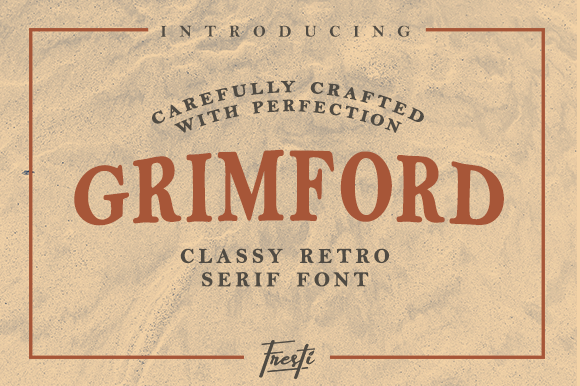
In a world of endless digital information, your designs have a mere split second to capture attention and make an indelible impact. Grimford, the captivating serif font, emerges as your secret weapon in this fierce battle for visual dominance. Crafted by the visionary artists at Fresti Art, Grimford is not just a font; it's an experience that transforms your designs into captivating masterpieces.
With its classic and timeless appeal, Grimford effortlessly adds a touch of elegance and sophistication to your creations. Its strong and thick character exudes confidence and authority, making it the perfect choice for headlines, logos, and branding elements that demand attention. Whether you're a seasoned designer or just starting out, Grimford is your gateway to creating designs that resonate with your audience and leave a lasting impression.
Step into the future of typography and embrace the power of Grimford. Its pixel-perfect design ensures flawless rendering on high-resolution displays, making it the ideal choice for web design, app development, and digital marketing materials. Your designs will shine with unparalleled clarity and sharpness, captivating your audience from the moment they lay their eyes on them.
But Grimford's allure extends far beyond its aesthetic appeal. It's a font that speaks to the heart, evoking emotions and creating connections. Its graceful curves and intricate details add a touch of personality and charm to your designs, making them more than just visual elements—they become storytelling tools that engage your audience on a deeper level.
In a competitive digital landscape, standing out from the crowd is paramount. Grimford is your secret weapon, empowering you to create designs that cut through the noise and resonate with your target audience. Its timeless beauty and emotional appeal will transform your designs into unforgettable experiences, leaving a lasting impression that keeps your audience coming back for more.
Don't settle for ordinary fonts that blend into the background. Embrace the power of Grimford and unleash your creativity. Its versatility knows no bounds, making it the perfect choice for a wide range of design projects, from elegant invitations to bold marketing campaigns. Its ability to elevate any design element, from headlines to body text, makes it an indispensable tool in your design arsenal.
Join the growing community of designers who have discovered the transformative power of Grimford. Let your designs speak volumes with a font that captures attention, evokes emotions, and creates a lasting impact. Embrace the Grimford experience and elevate your designs to new heights of excellence.